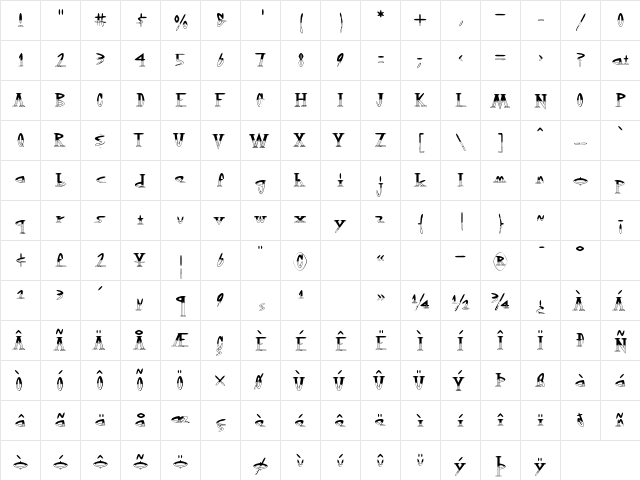
OutwestHalfEmpty Regular
Design Context for OutwestHalfEmpty Typeface
OutwestHalfEmpty is a composed and adaptable typeface that performs quietly and consistently across a wide range of design contexts.